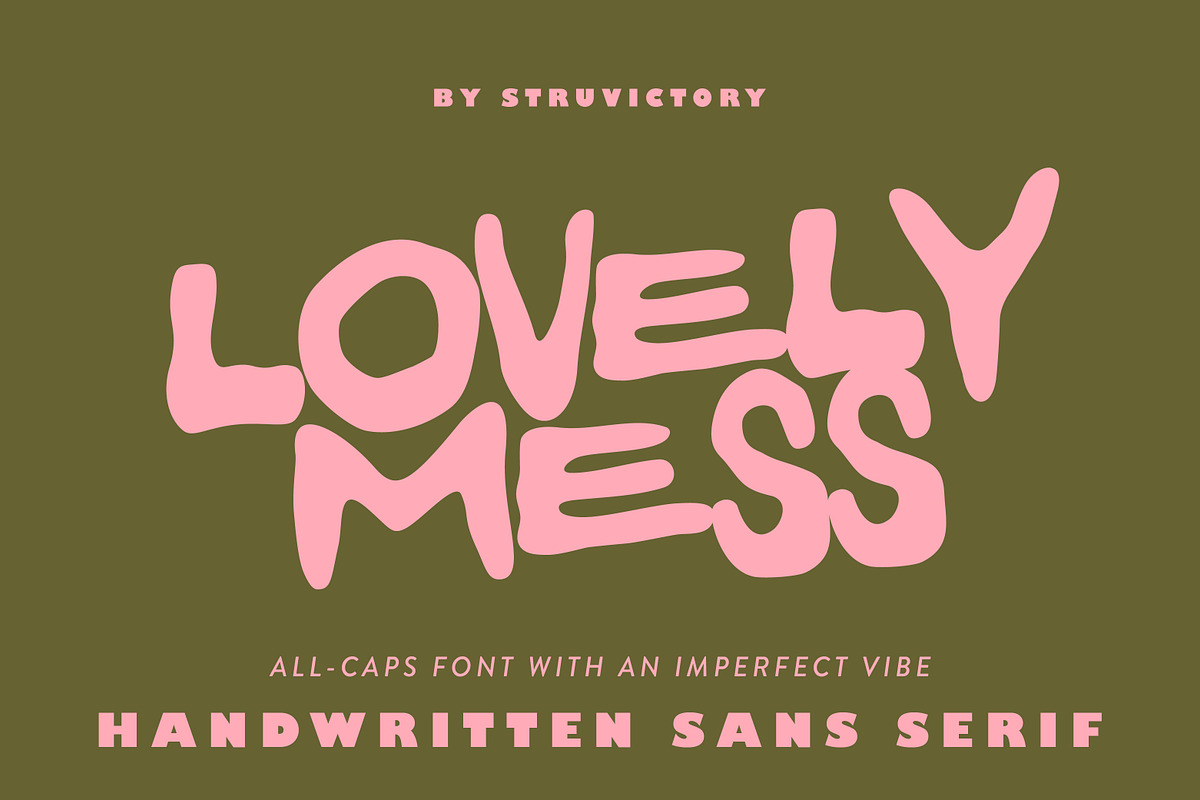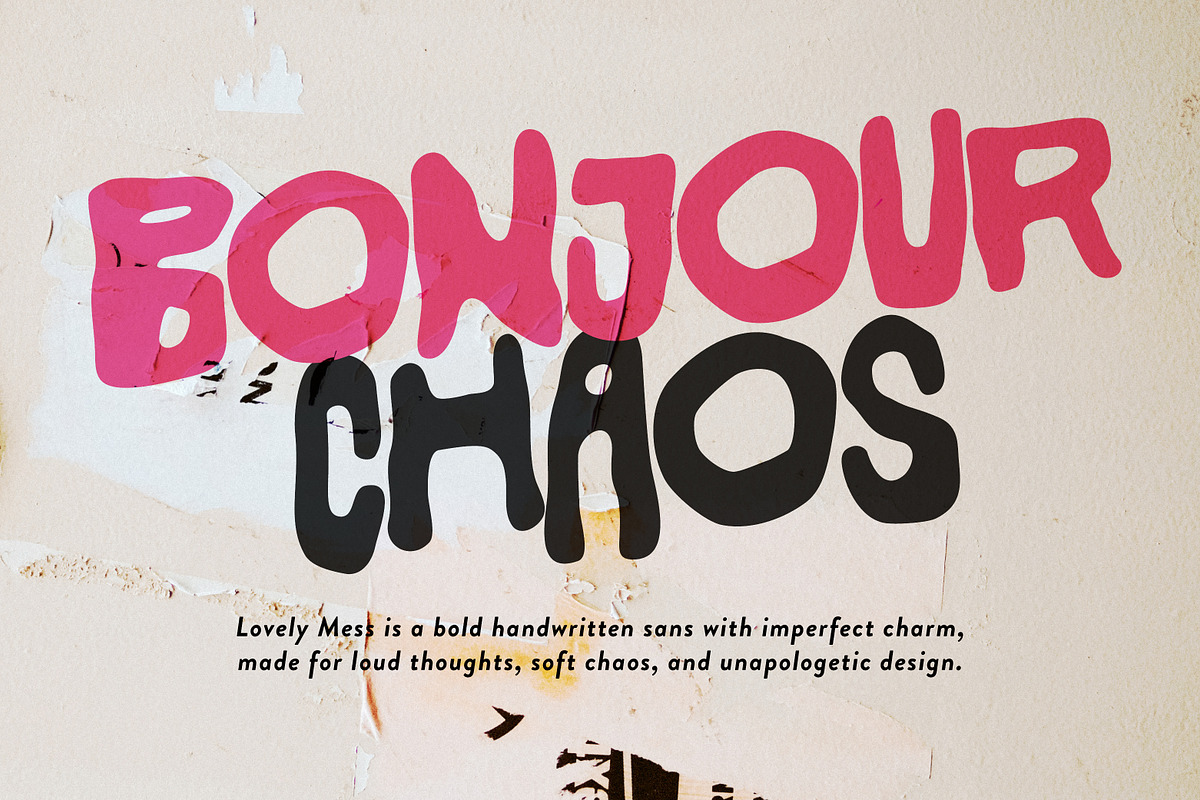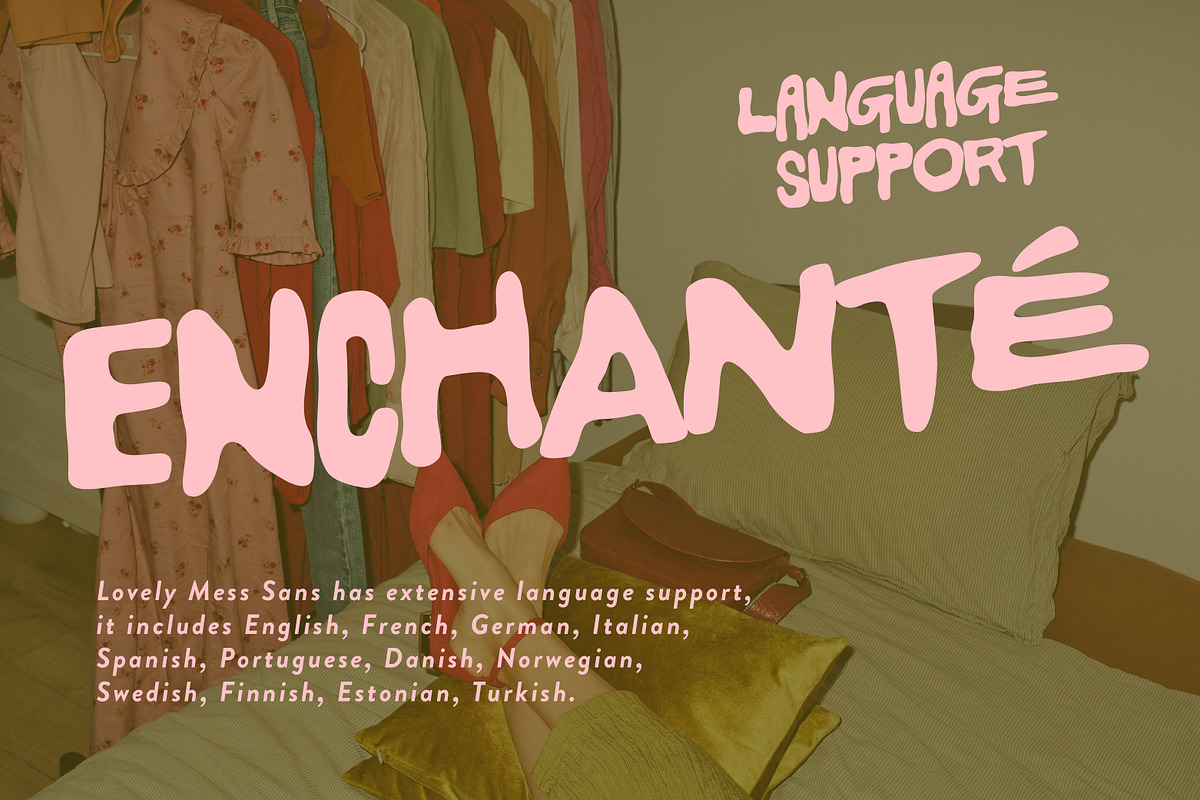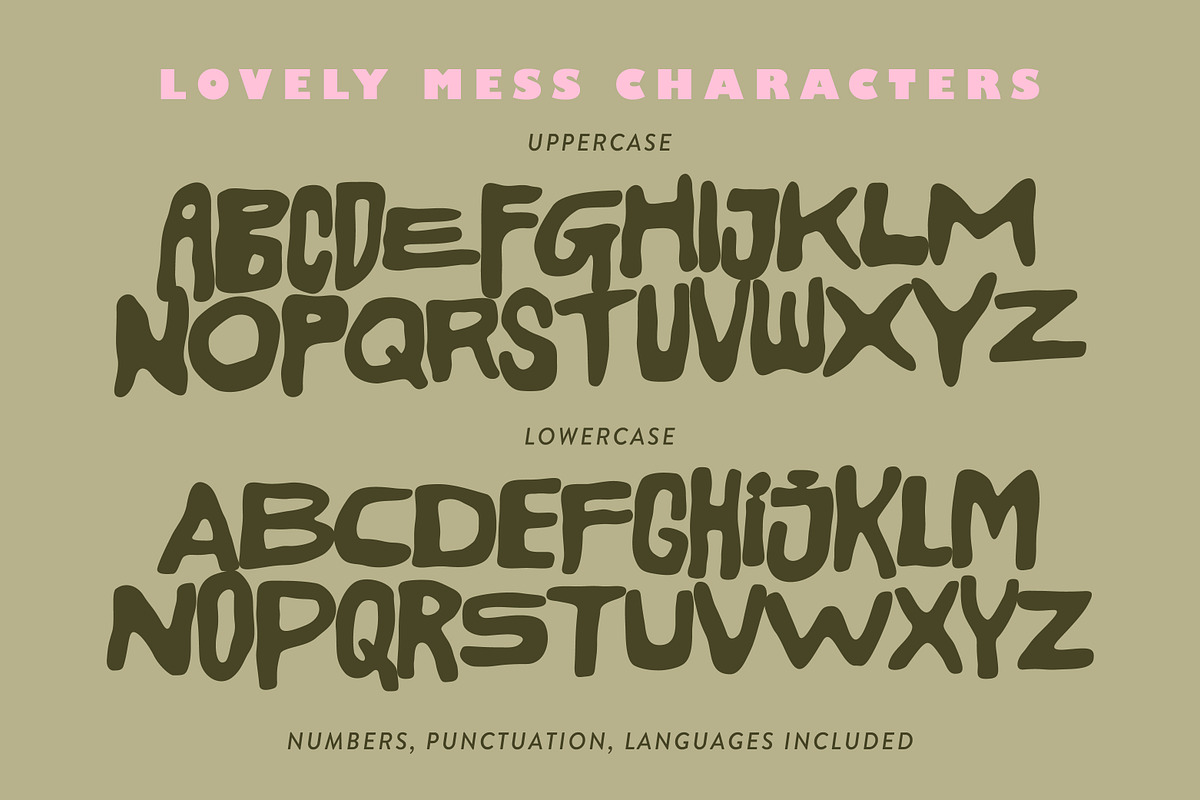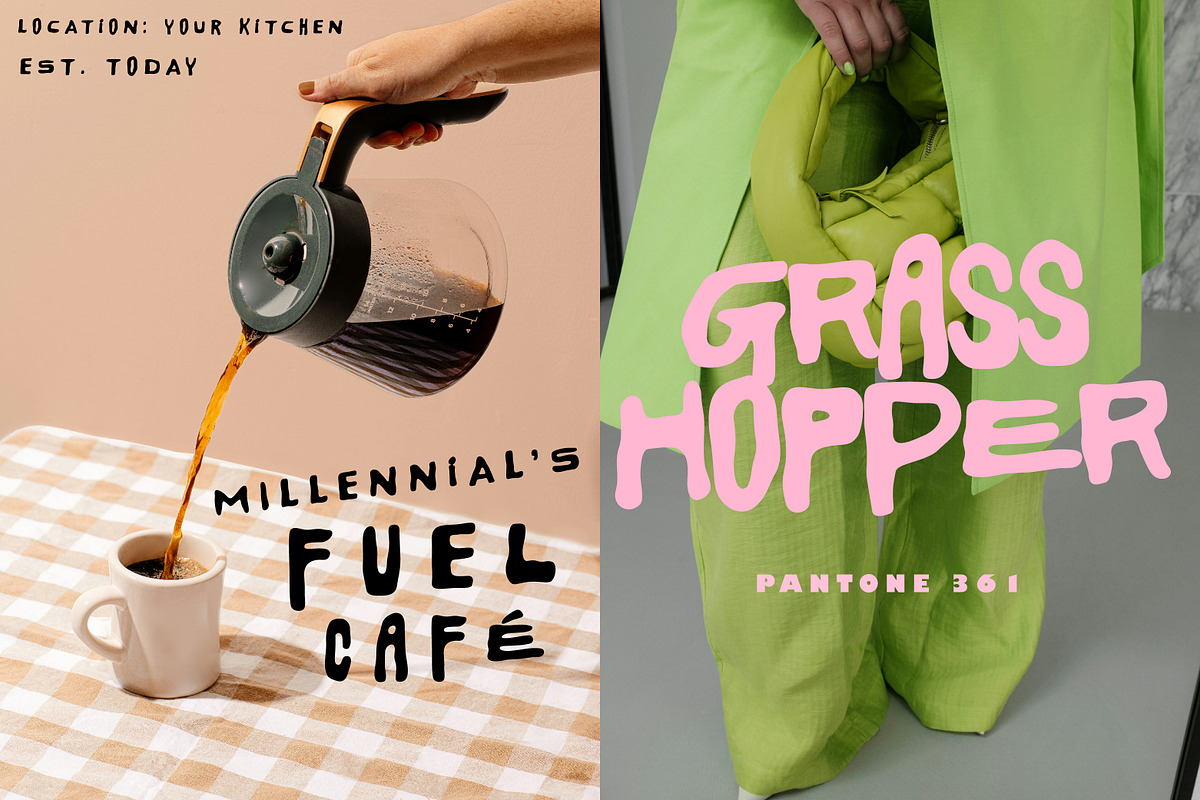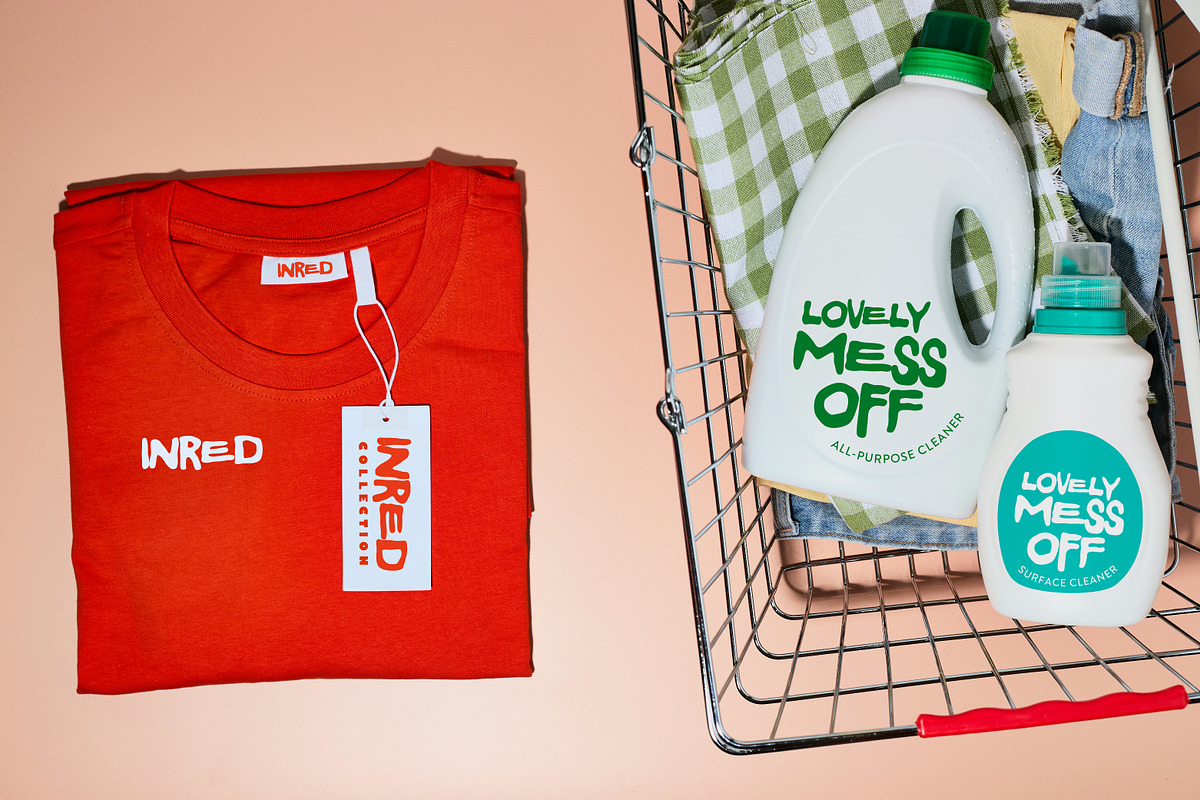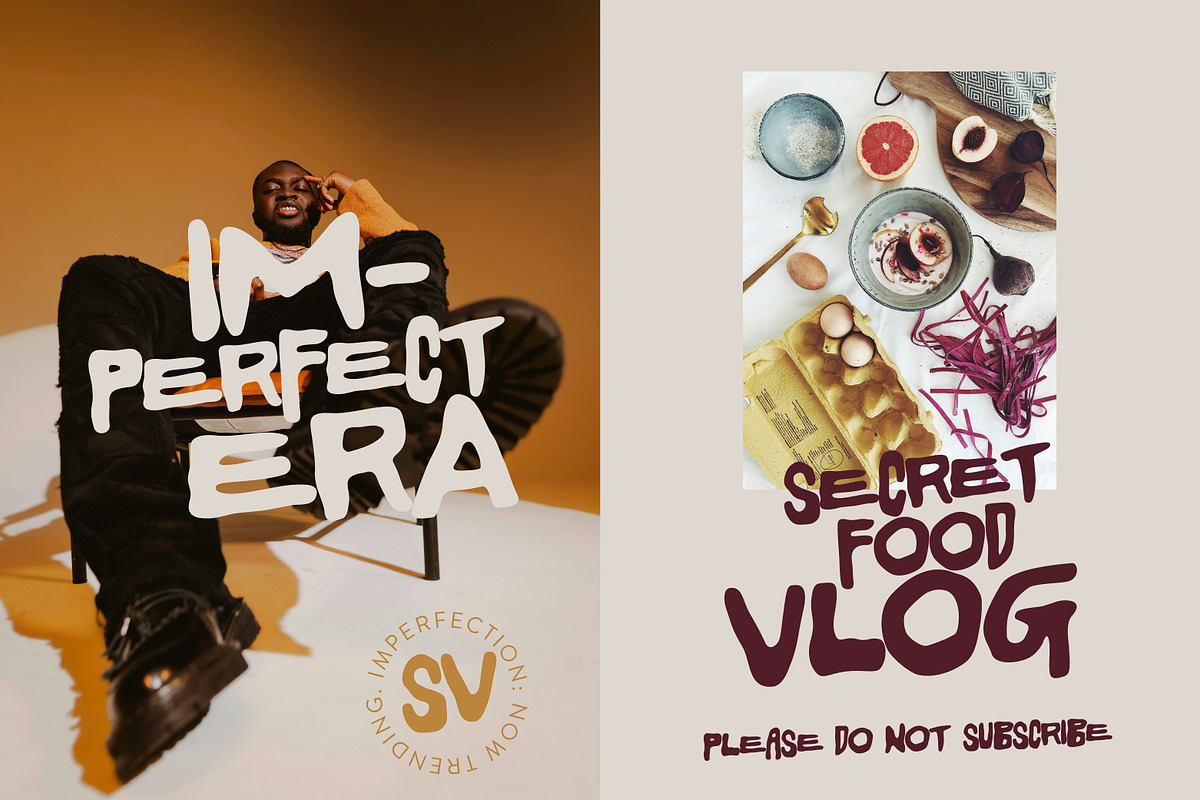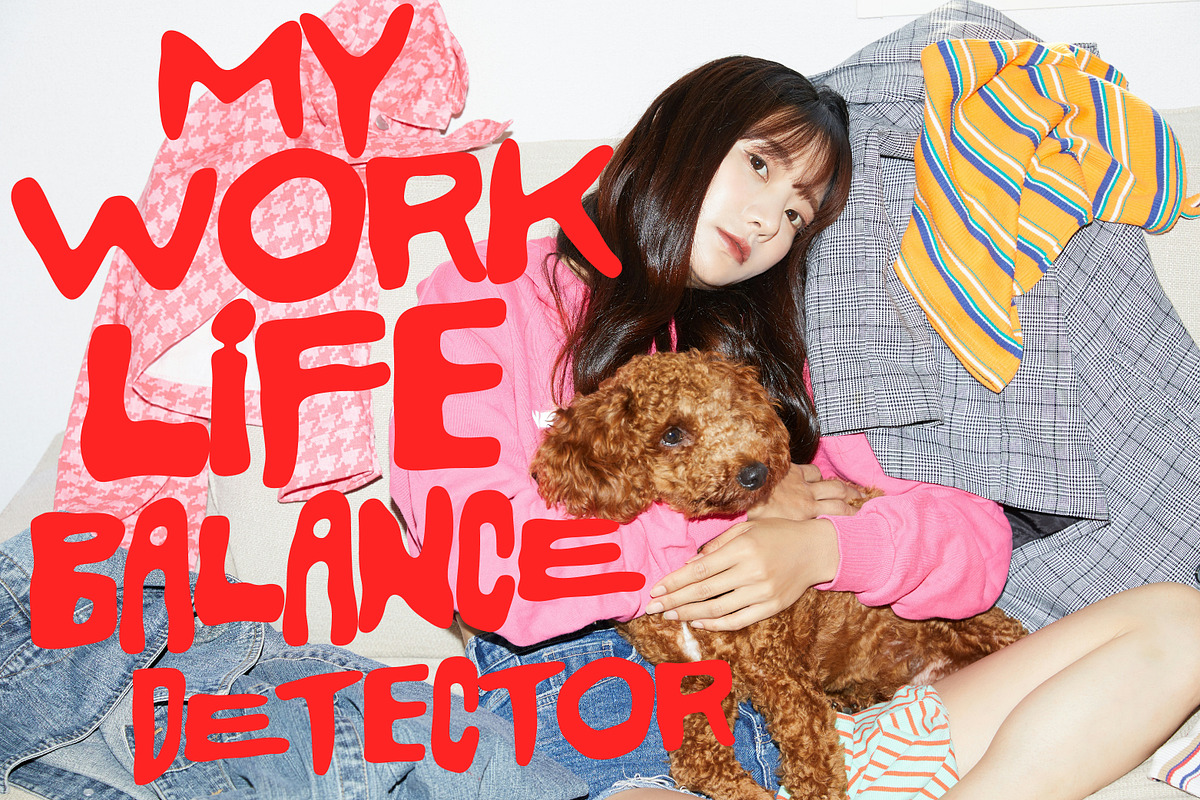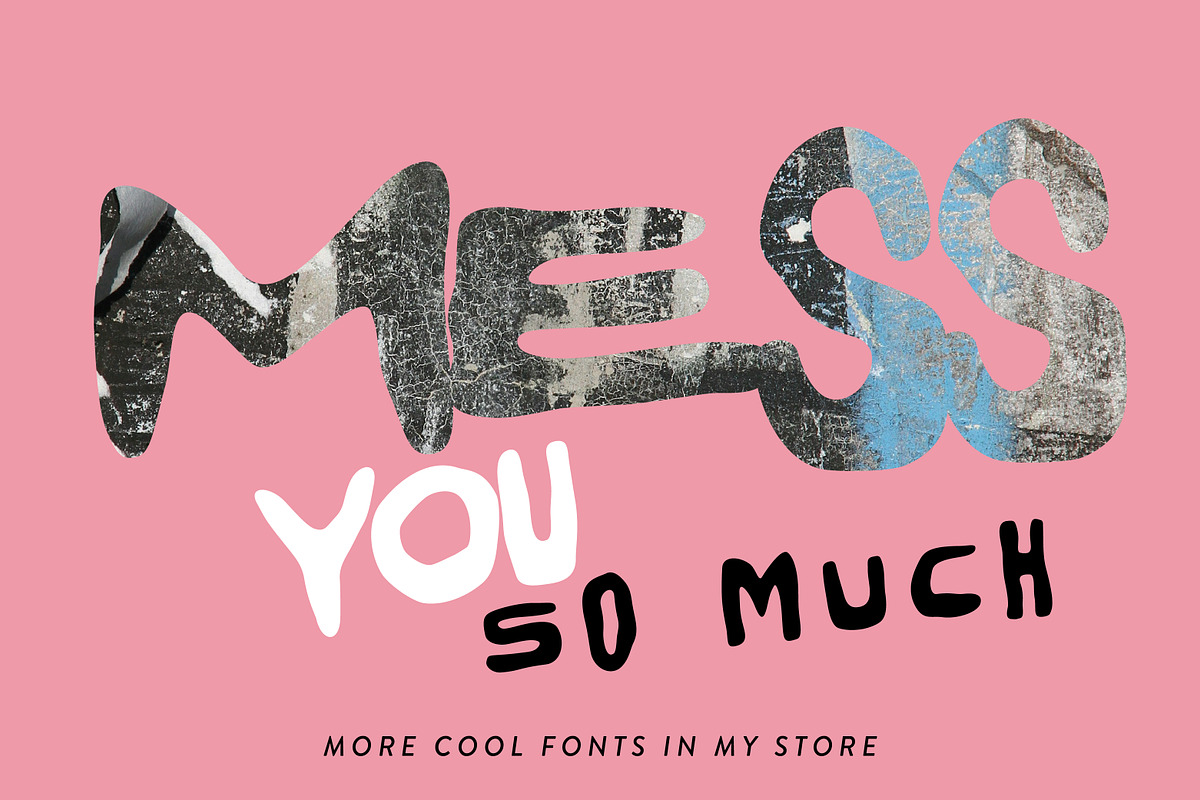
Lovely Mess Handwritten Chaotic Sans
Lovely Mess is a hand-drawn all-caps sans serif font with an organic, imperfect personality. Its relaxed structure and quirky edges give off a cool, effortless vibe. It's perfect for trendy posters, bold branding, logos, and packaging that speaks to a Gen Z audience. Whether you're designing something playful or a bit chaotic, Lovely Mess delivers a casual charm that feels personal, expressive, and totally unpolished in the best way.
Lovely Mess supports the most popular latin-based languages, you can check the symbol you need by typing a couple of words in the font preview box.